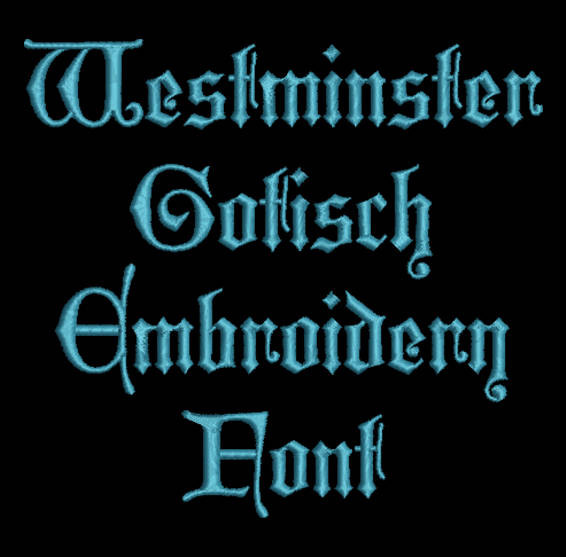
Title: Westminster Gotisch machine embroidery font
This Westminster Gotisch font is perfect for personalizing clothes, bags, towels and linens!
This beautiful font would look amazing as a Monogram on Totes, School bags and purses!